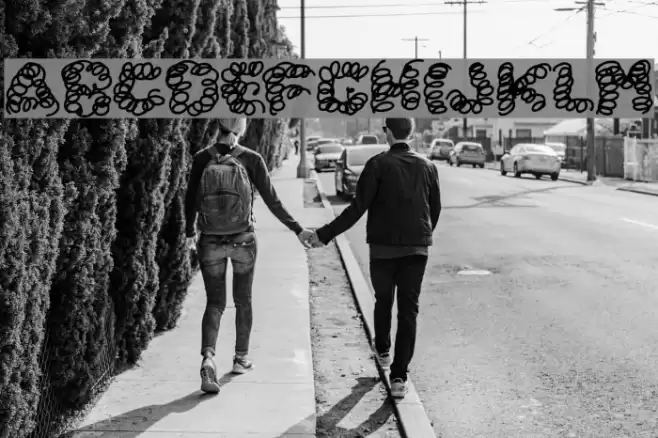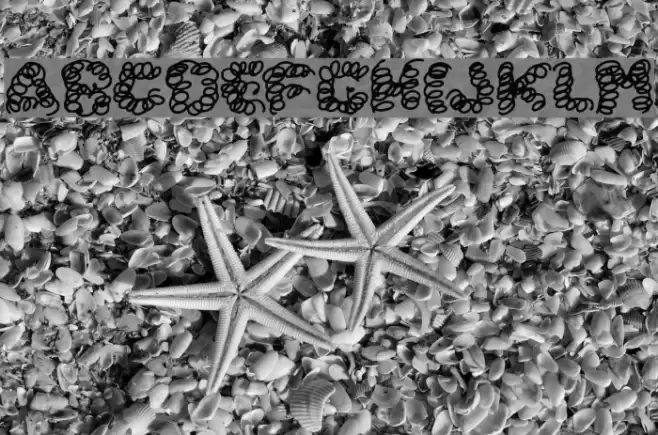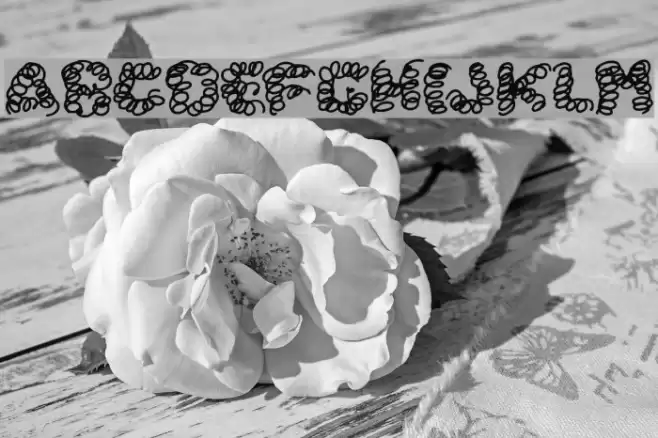
Spring Jokes Font
Spring Jokes Description
This playful and whimsical font is characterized by its unique, curly design that resembles coiled springs. Each letter is composed of multiple loops, giving it a lively and dynamic appearance. The font maintains a consistent thickness throughout, creating a uniform look despite its intricate details. Its decorative nature makes it stand out, perfect for projects that require a touch of fun and creativity. The font includes both uppercase and lowercase letters, numbers, and a selection of special characters, all following the same coiled spring motif.
A playful, curly font with a spring-like design, perfect for creative projects from Uncategorized fonts.
- Proposed Projects: Ideal for children's books, playful branding, party invitations, and creative posters.